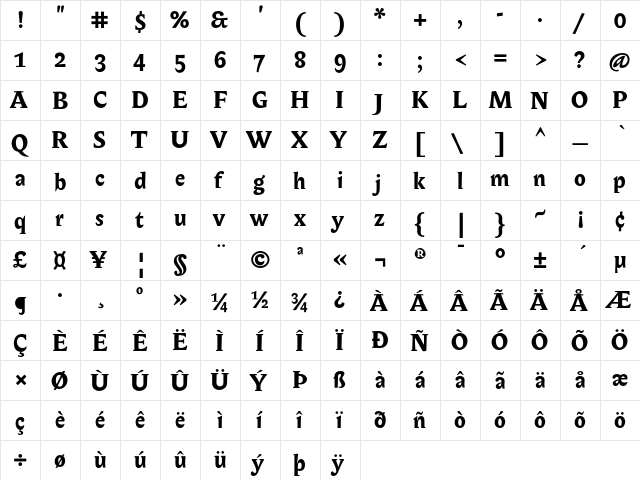
Biblon OT Bold
Design Context for Biblon OT Typeface
Biblon OT is a composed and adaptable typeface that performs quietly and consistently across a wide range of design contexts. The heavy weight commands attention and anchors typographic hierarchies.